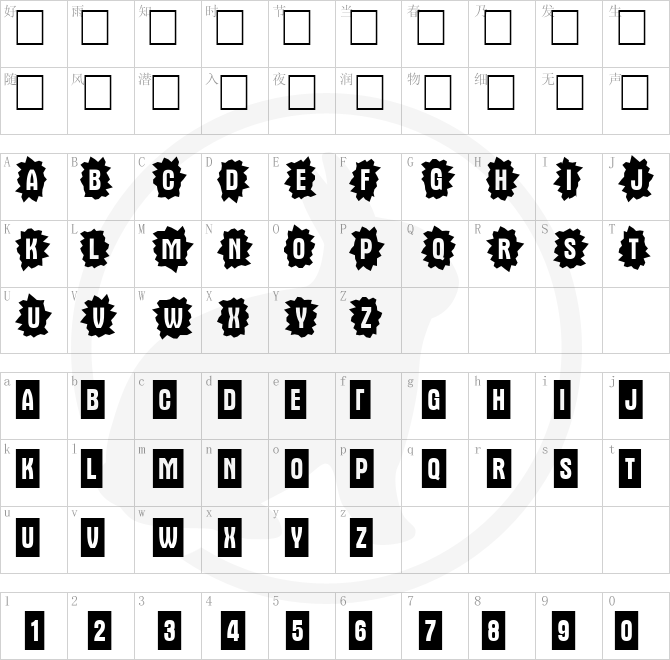
- Font Name:a_AlternaCmDc4Cb
- Subfamily:Demi
a_AlternaCmDc4Cb.ttf is a very beautiful artistic font, a_AlternaCmDc4Cb.ttf is widely used in the design and printing of various books and pictures,a_AlternaCmDc4Cb.ttf has a strong visual impact,a_AlternaCmDc4Cb.ttf is a commonly used font in newspapers, magazines and books, and is used in posters, e-commerce Poster design, store design, logo design, font design and other fields.a_AlternaCmDc4Cb.